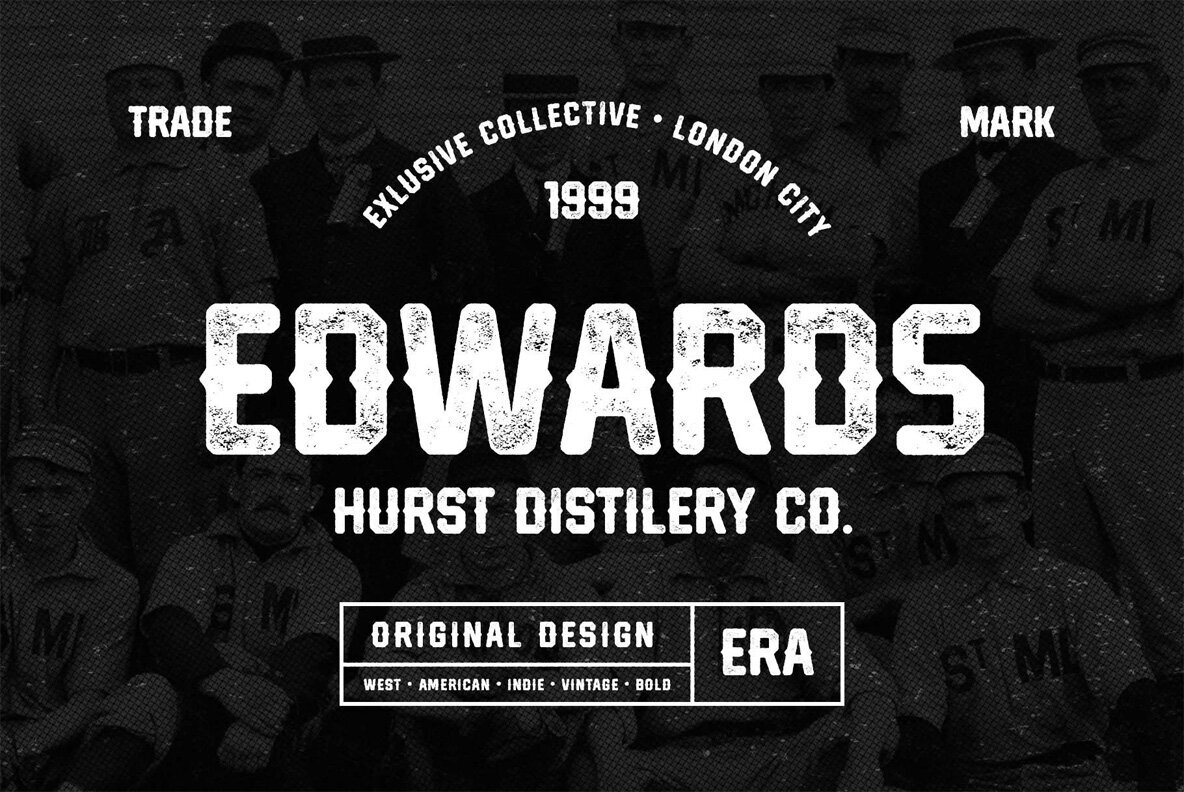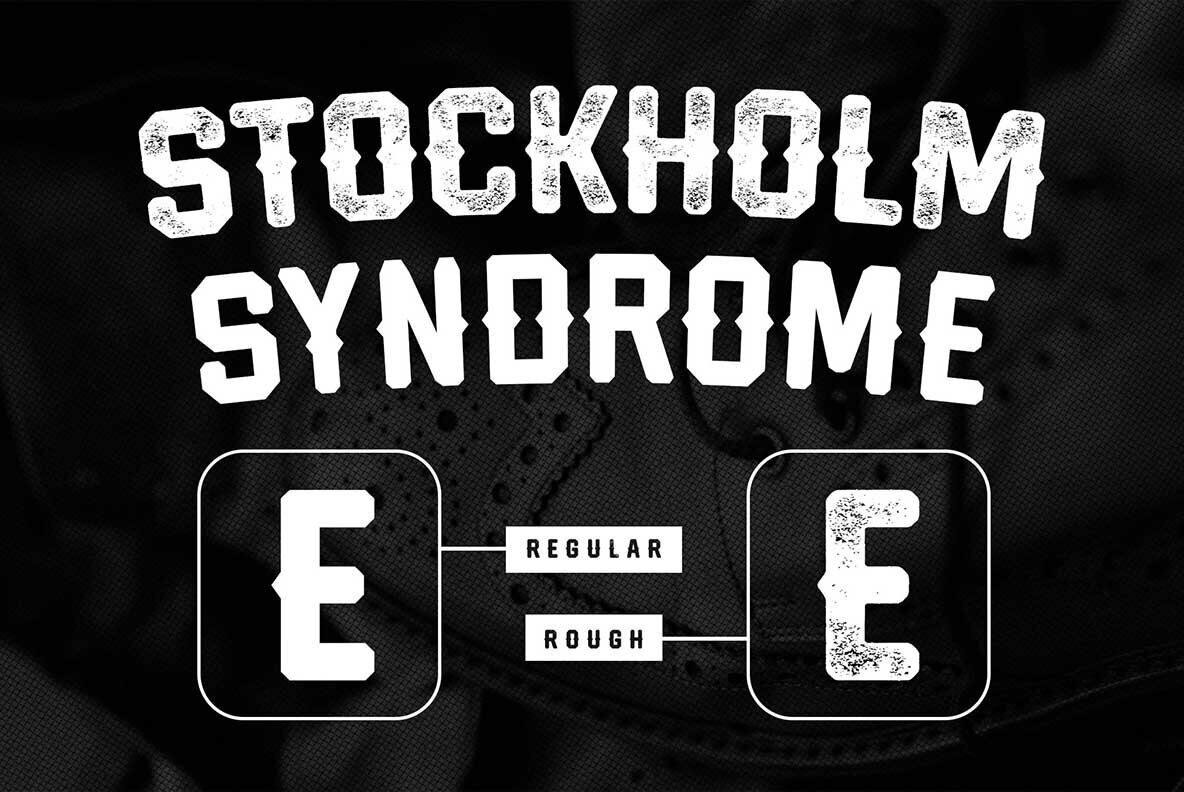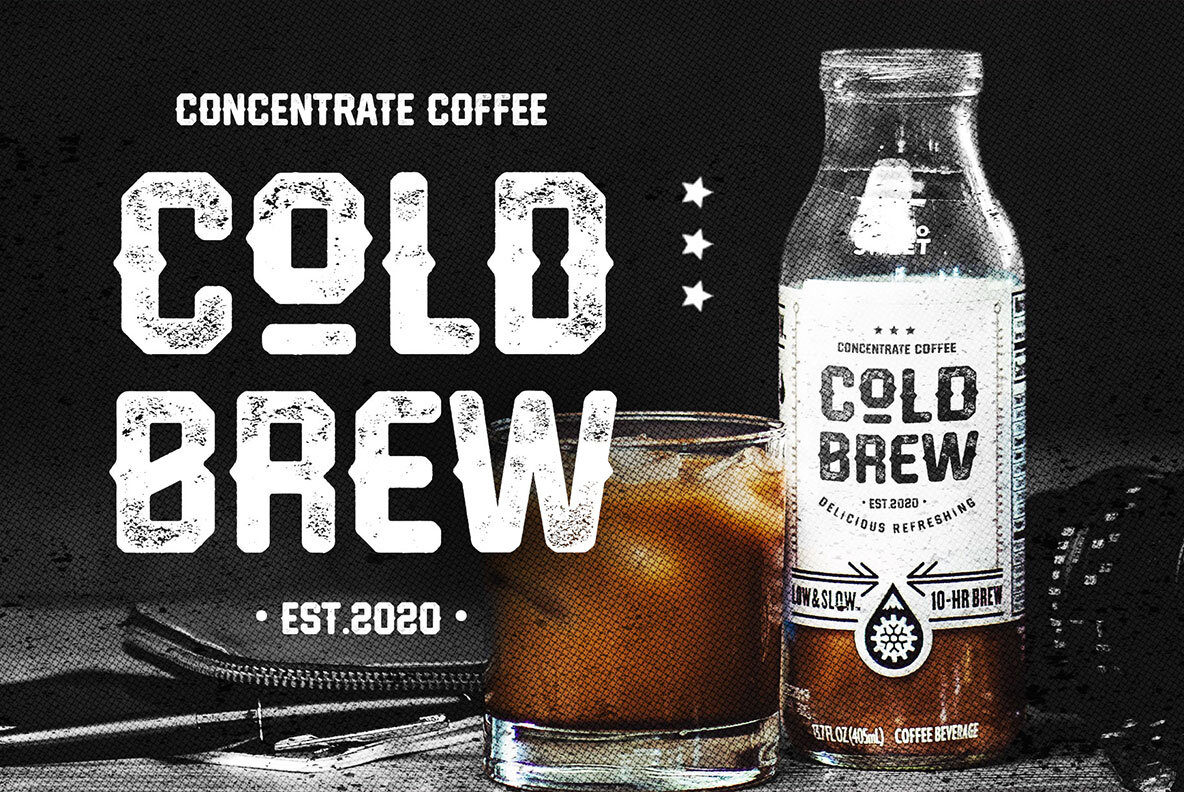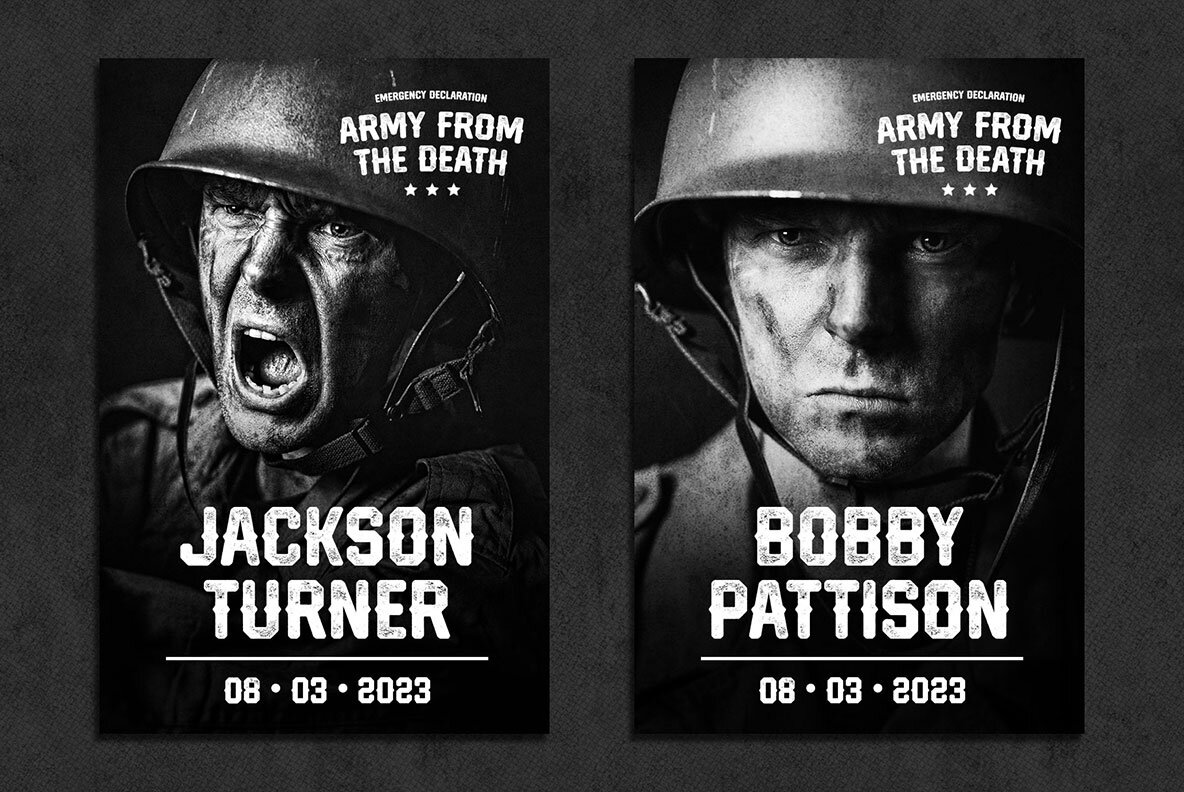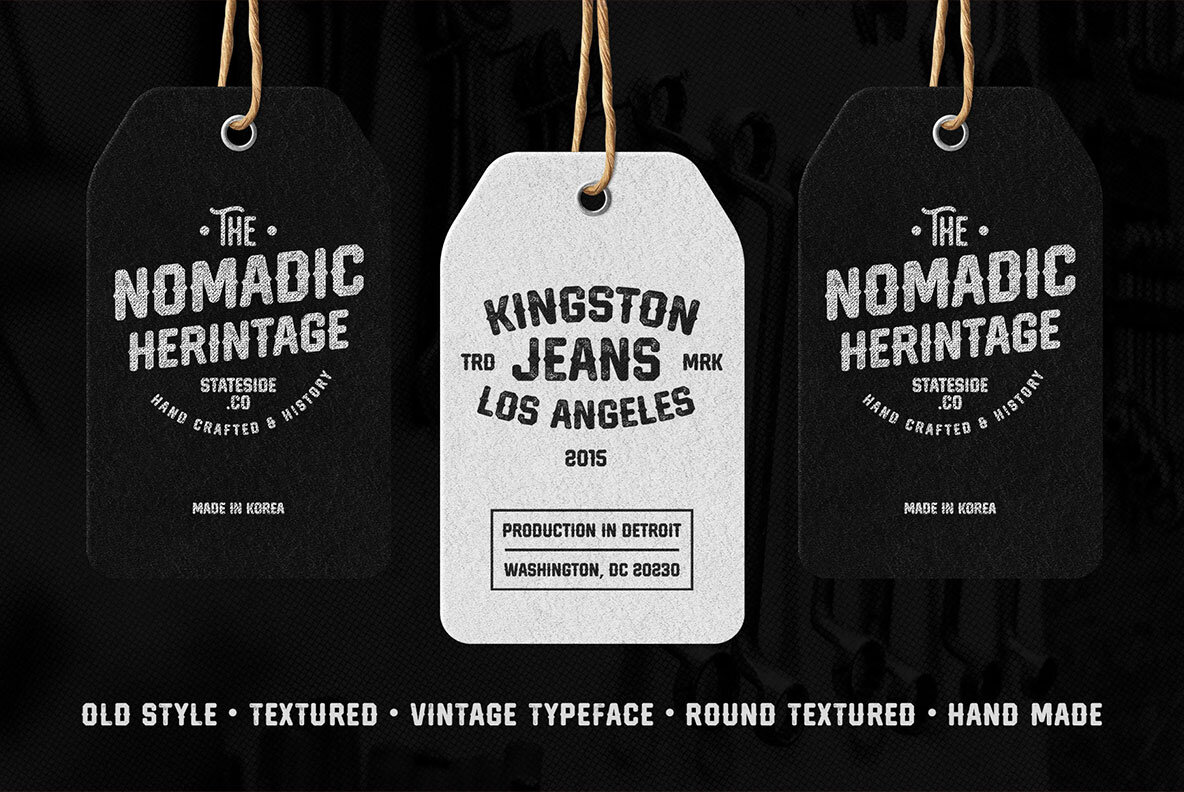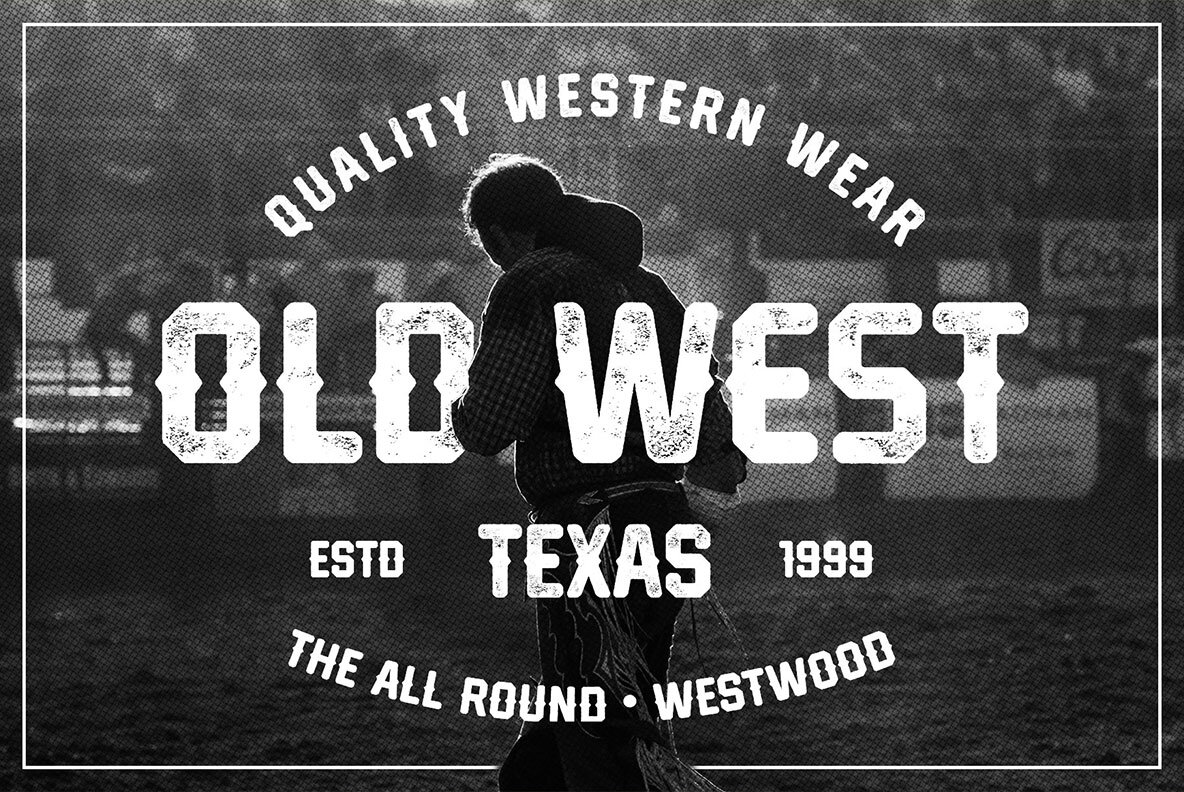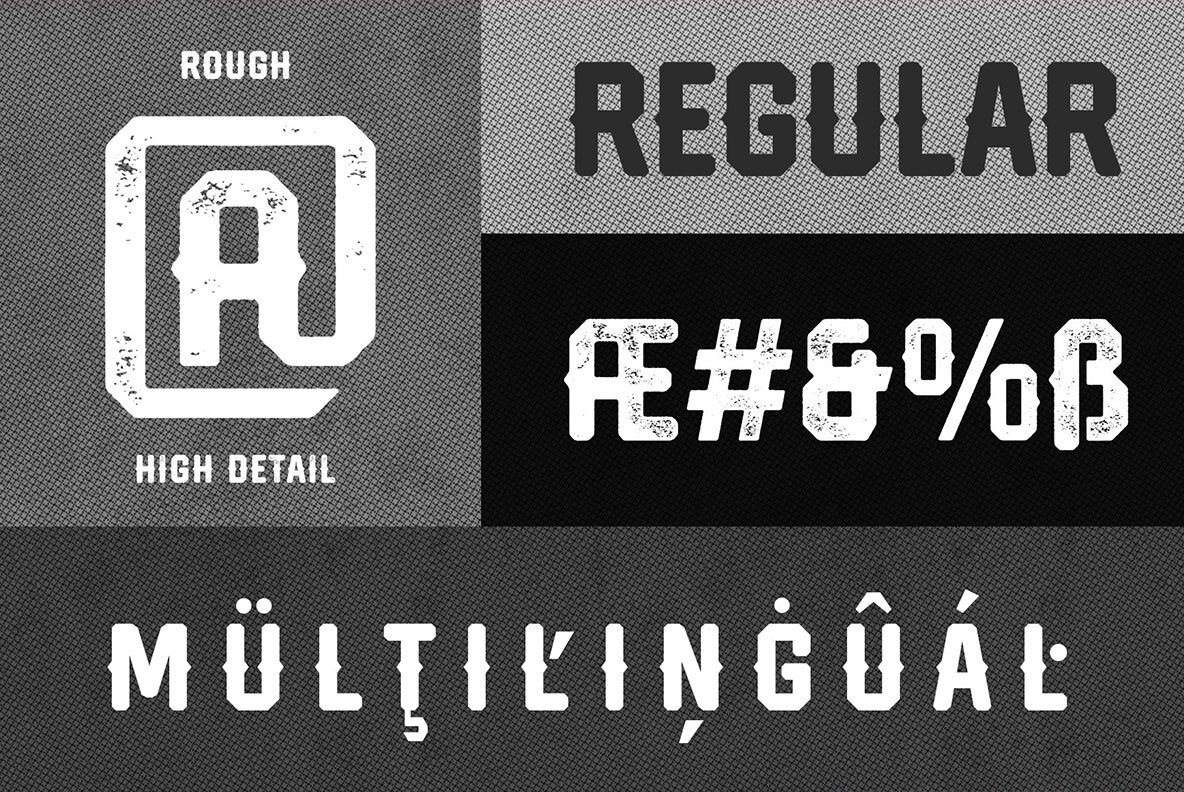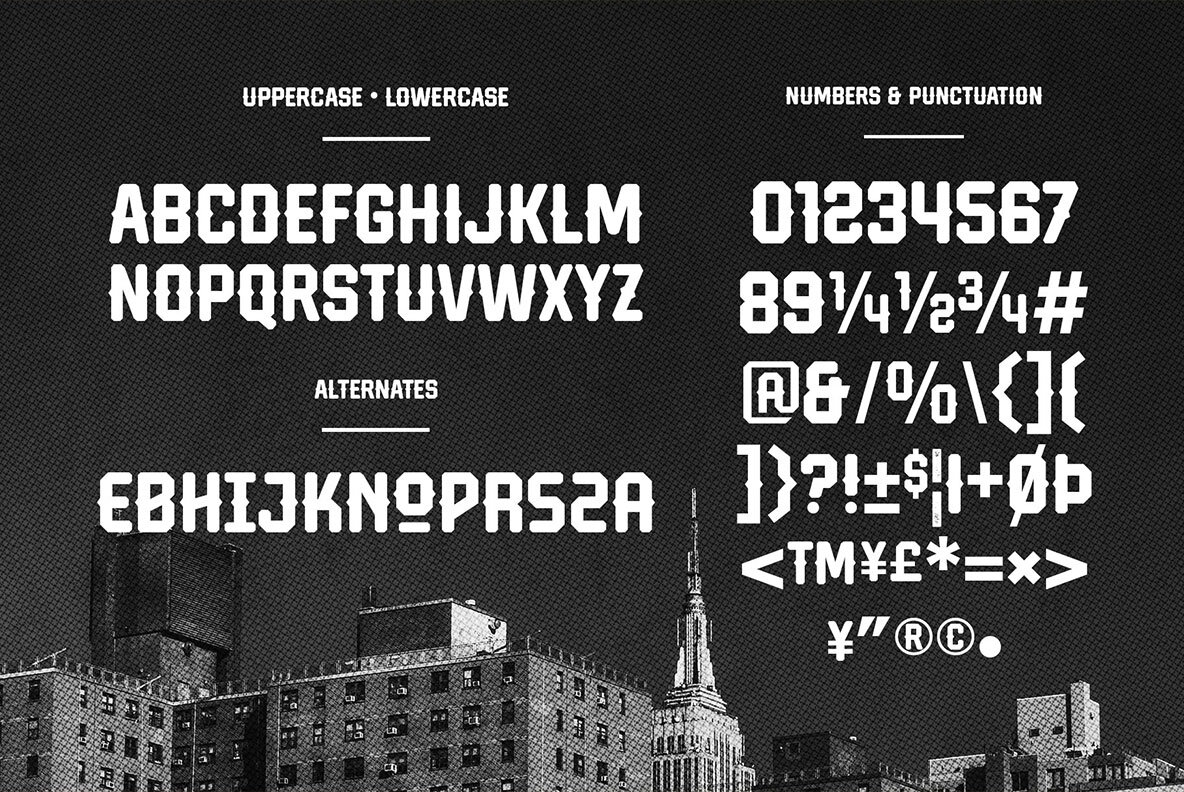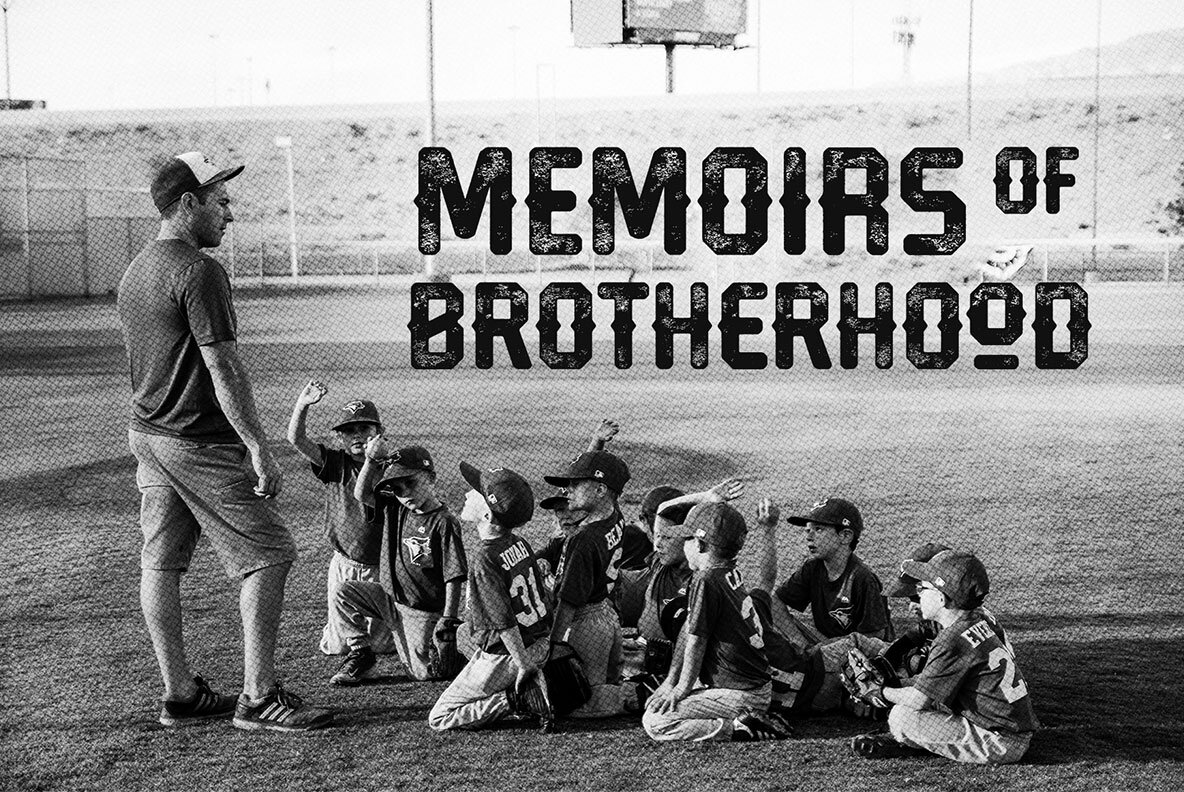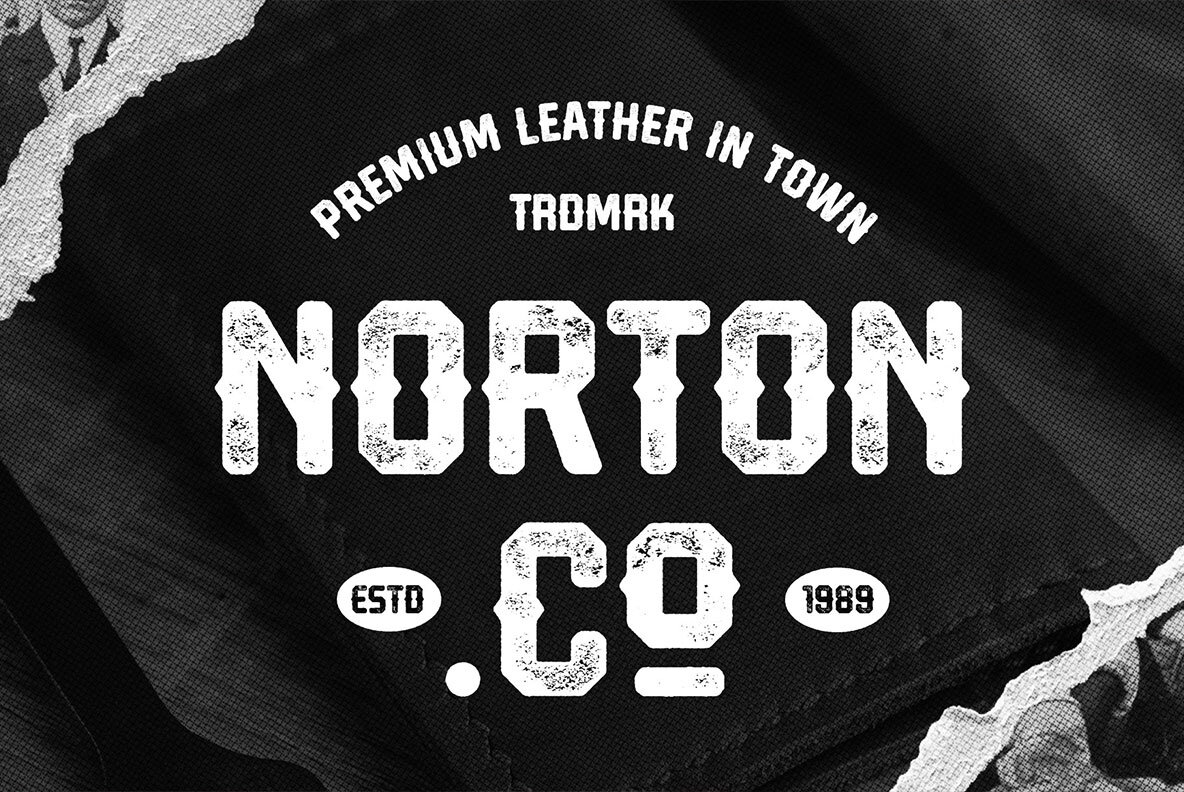
Hardcore Hipsta Font
Hardcore Hipsta is a vintage display font that commands attention. Available in both regular and rough styles, it is an ideal fit for a variety of projects. This font embodies strength and confidence, thanks to its bold and robust design. Crafted with block-based structures, uncurved lines, and sharp edges, Hardcore Hipsta offers a daring aesthetic. It’s the perfect choice for an array of uses including sports-related materials, posters, jerseys, labels, storefronts, coffee branding, stickers, logos, badges, and headlines. Features:Hardcore Hipsta: Vintage Display Font with Attitude